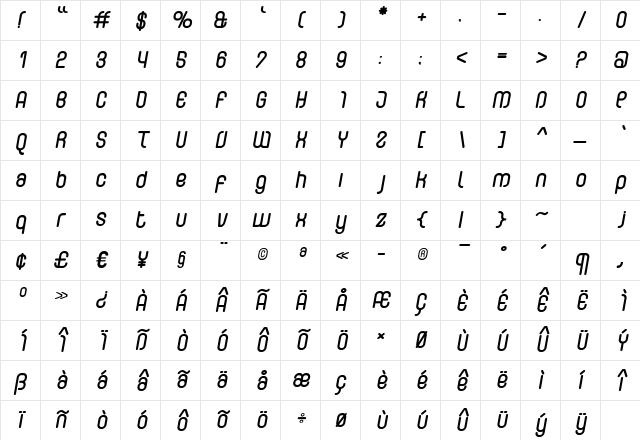
CurvatureRounded Italic Regular
Design Context for CurvatureRounded Italic
CurvatureRounded Italic softens its letterforms with rounded terminals, giving it an approachable, friendly quality that works well in consumer-facing and digital contexts. The slanted form adds forward momentum and visual energy.
Font Pairing: Pairs well with a rounded or humanist sans for body copy, maintaining the friendly tone without relying on CurvatureRounded Italic to carry extended reading.
Pro Tip: Use CurvatureRounded Italic for UI elements, app interfaces, and anywhere a friendly, approachable tone needs to be maintained without sacrificing clarity.